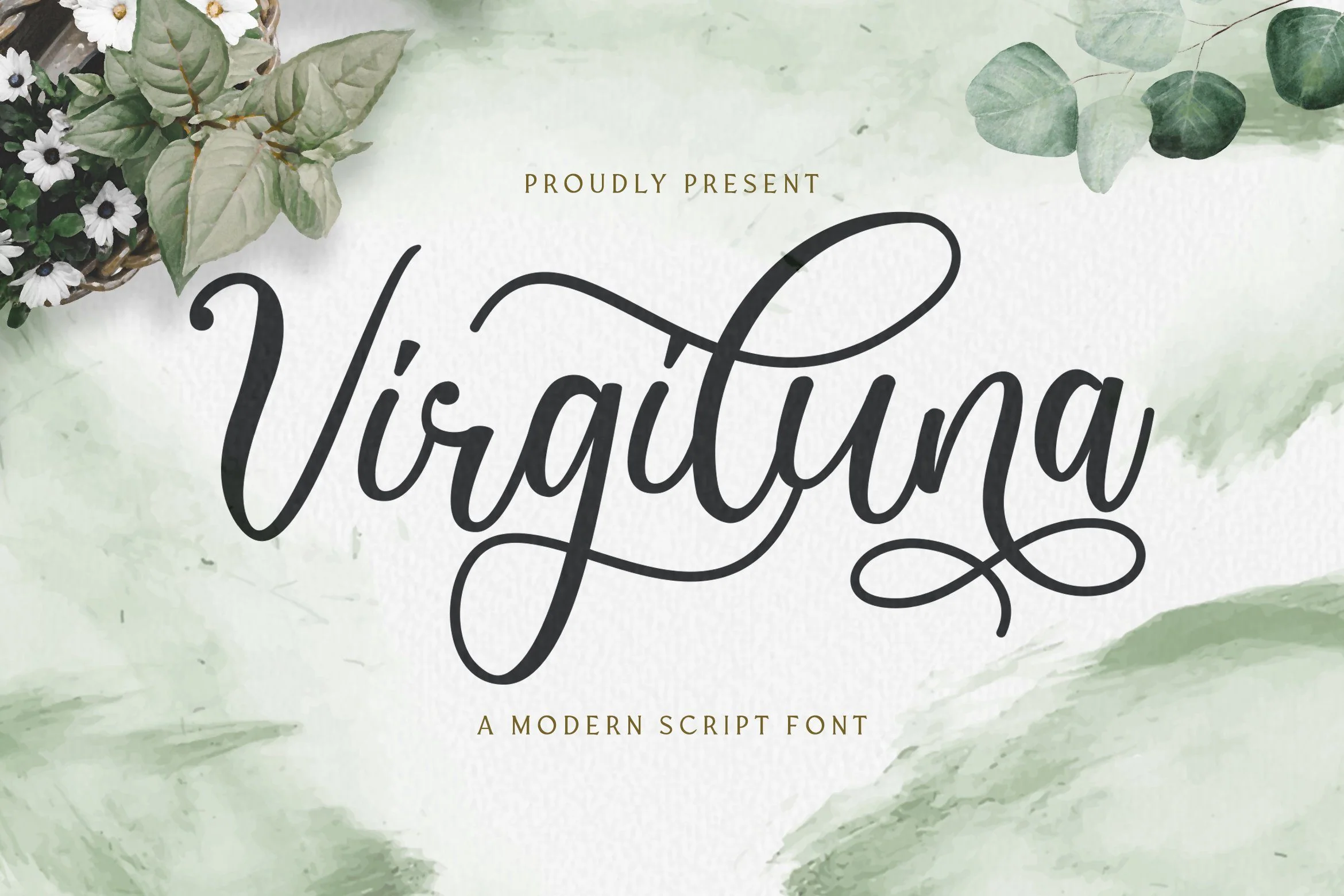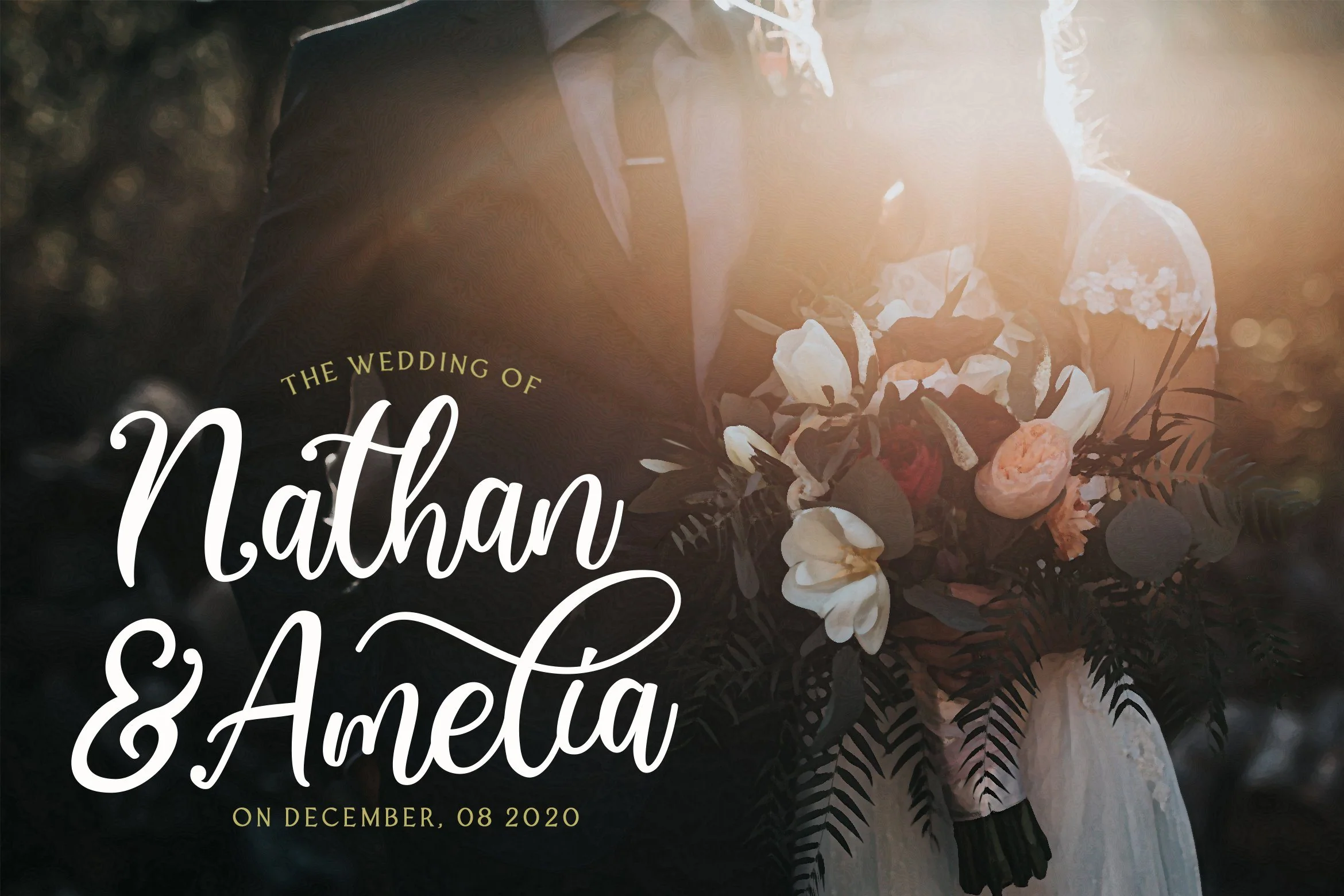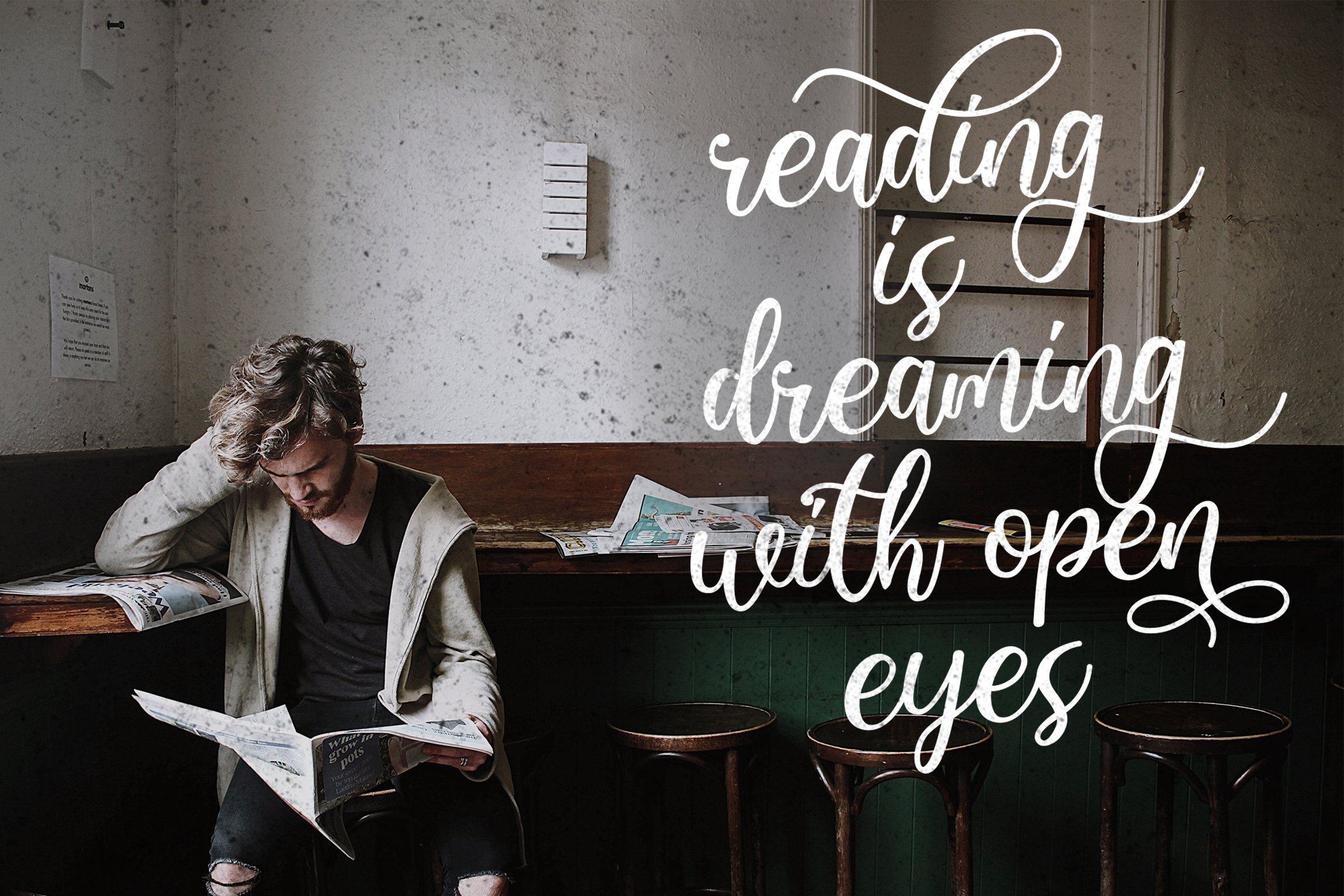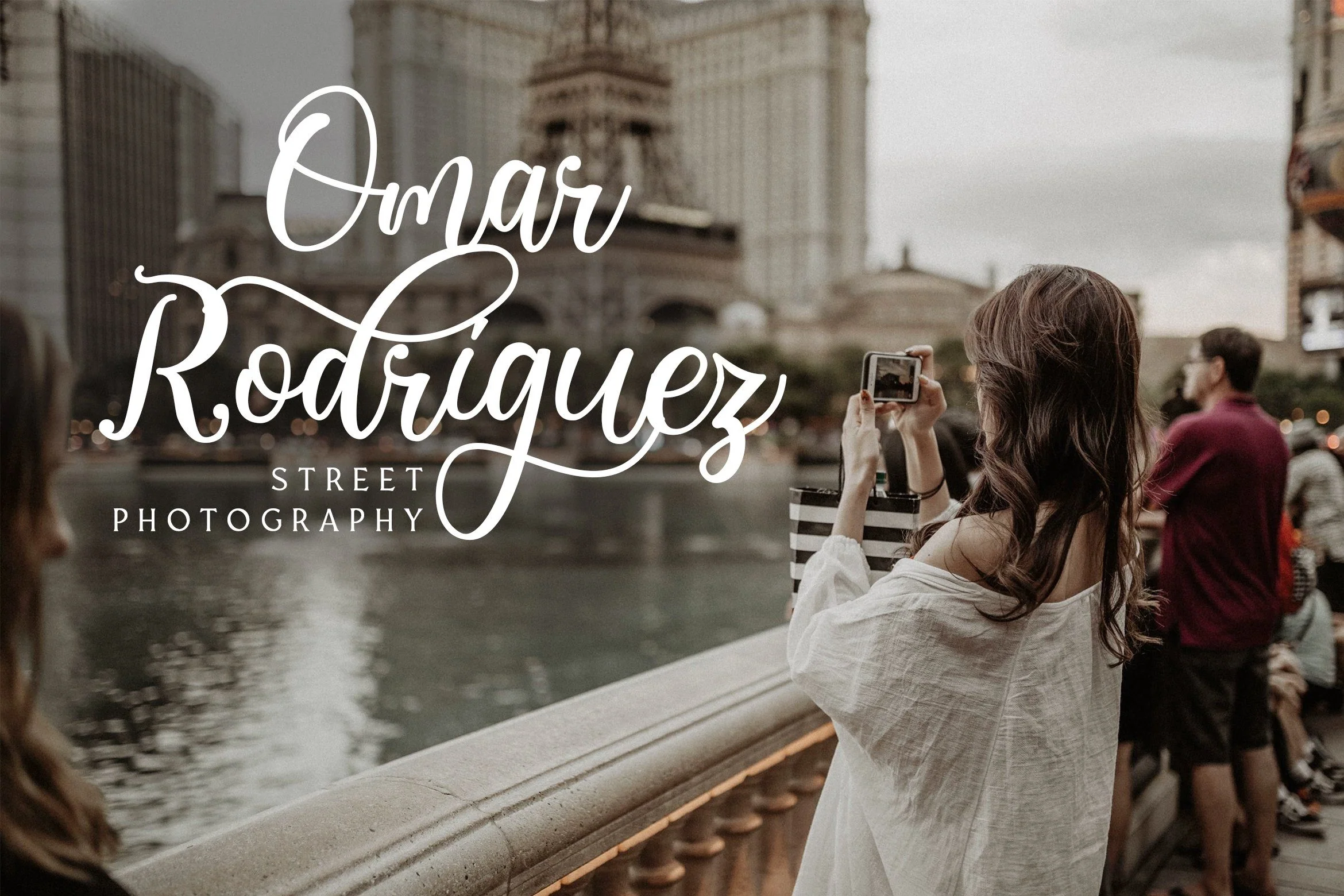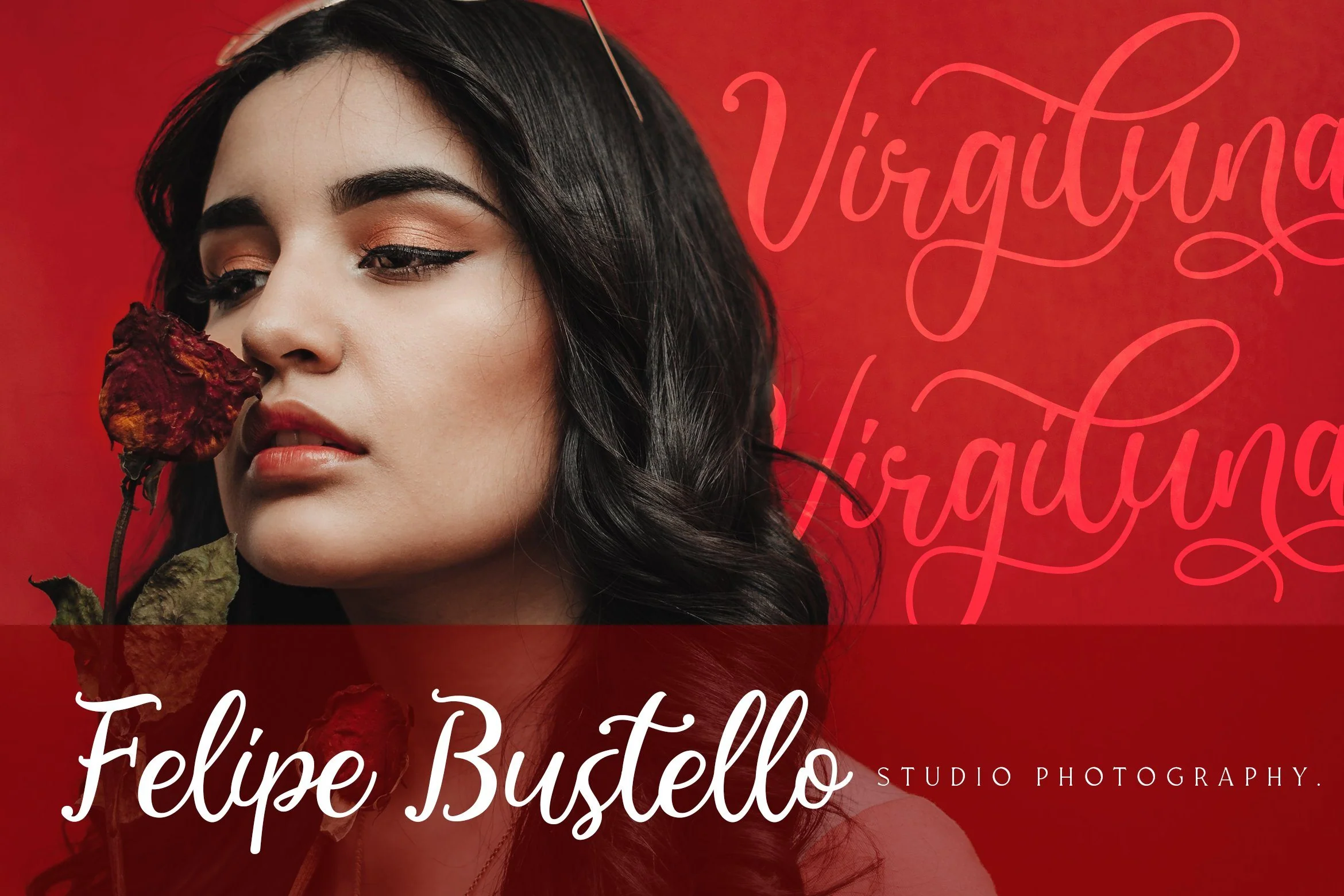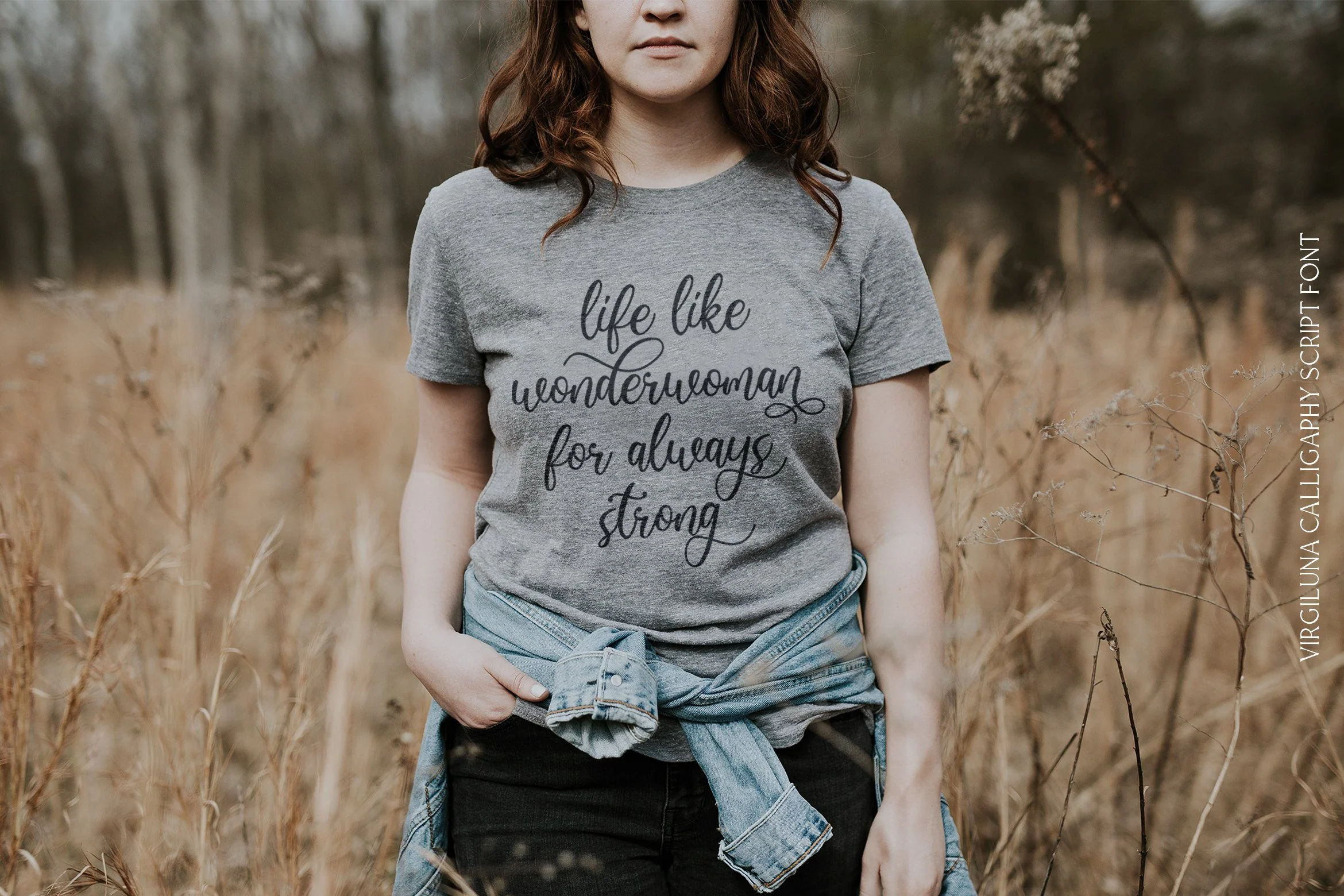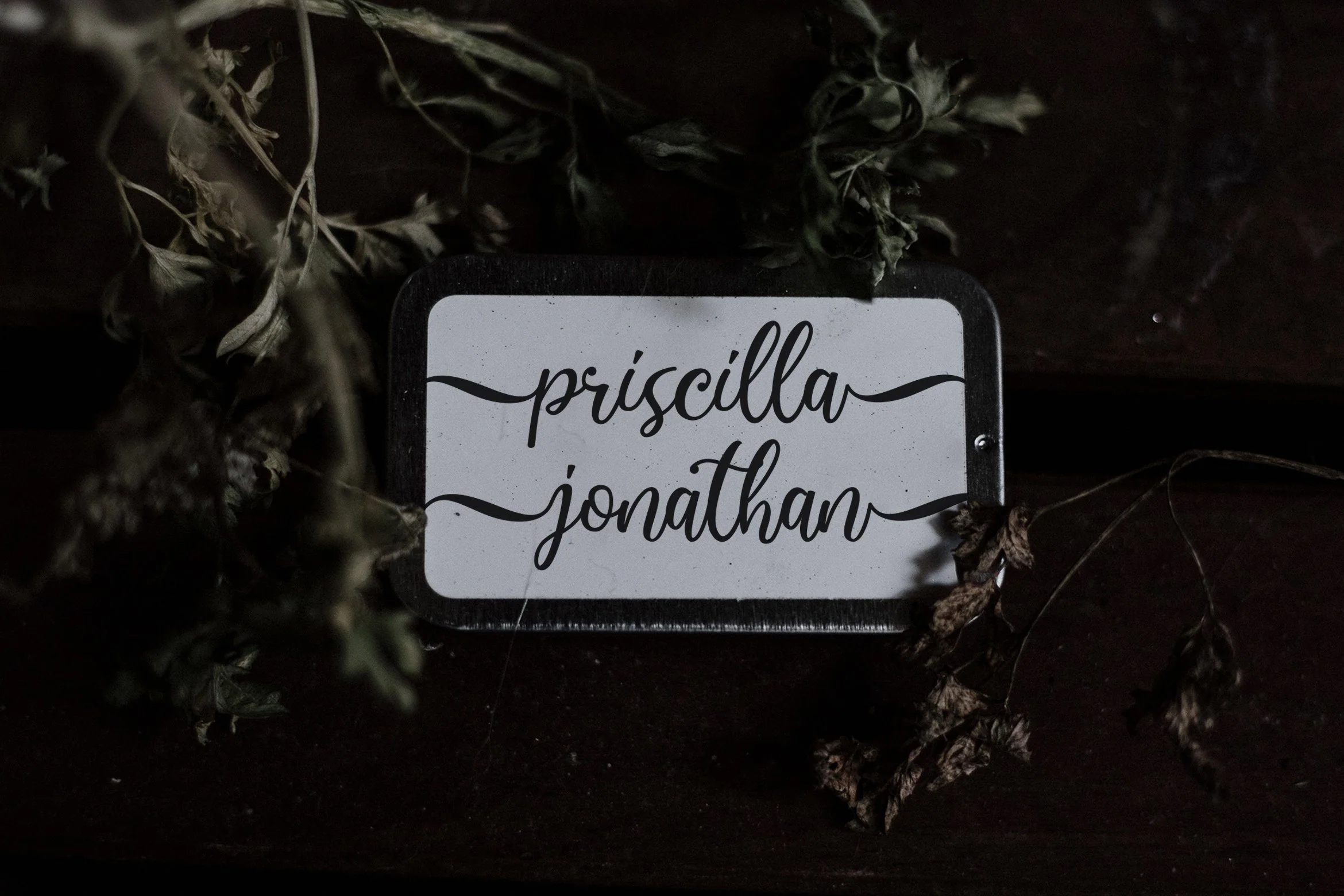
Virgiluna - Modern Calligraphy Font
Introducing Virgiluna - Modern Calligraphy Font
Virgiluna is a Calligraphy Script Font with Modern Handwritten Style. The Virgiluna font was created with authentic handwritting brush pen. This font is perfect for fashion brand, wedding invitation, business card, logo brand, signature, and then calligraphy.
This Font Template contains Classy, Elegant, Creative, Cool and has a Unique Concept.
Introducing Virgiluna - Modern Calligraphy Font
Virgiluna is a Calligraphy Script Font with Modern Handwritten Style. The Virgiluna font was created with authentic handwritting brush pen. This font is perfect for fashion brand, wedding invitation, business card, logo brand, signature, and then calligraphy.
This Font Template contains Classy, Elegant, Creative, Cool and has a Unique Concept.